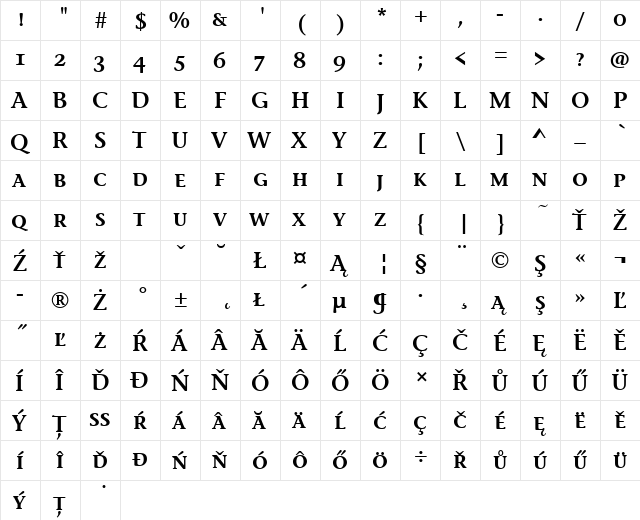
StoneInfSCItcTEESem Regular
Design Context for StoneInfSCItcTEESem Typeface
StoneInfSCItcTEESem is a composed and adaptable typeface that performs quietly and consistently across a wide range of design contexts.